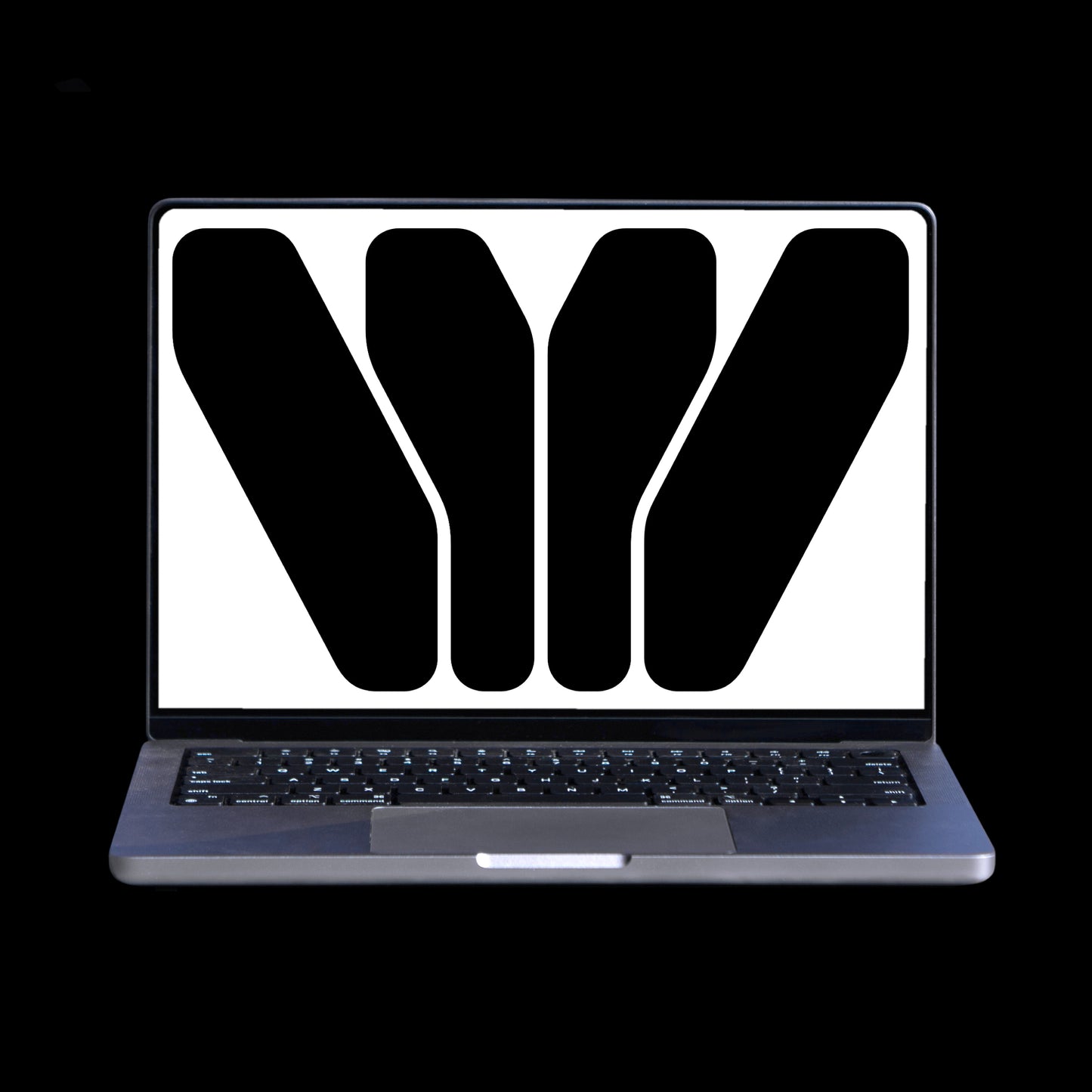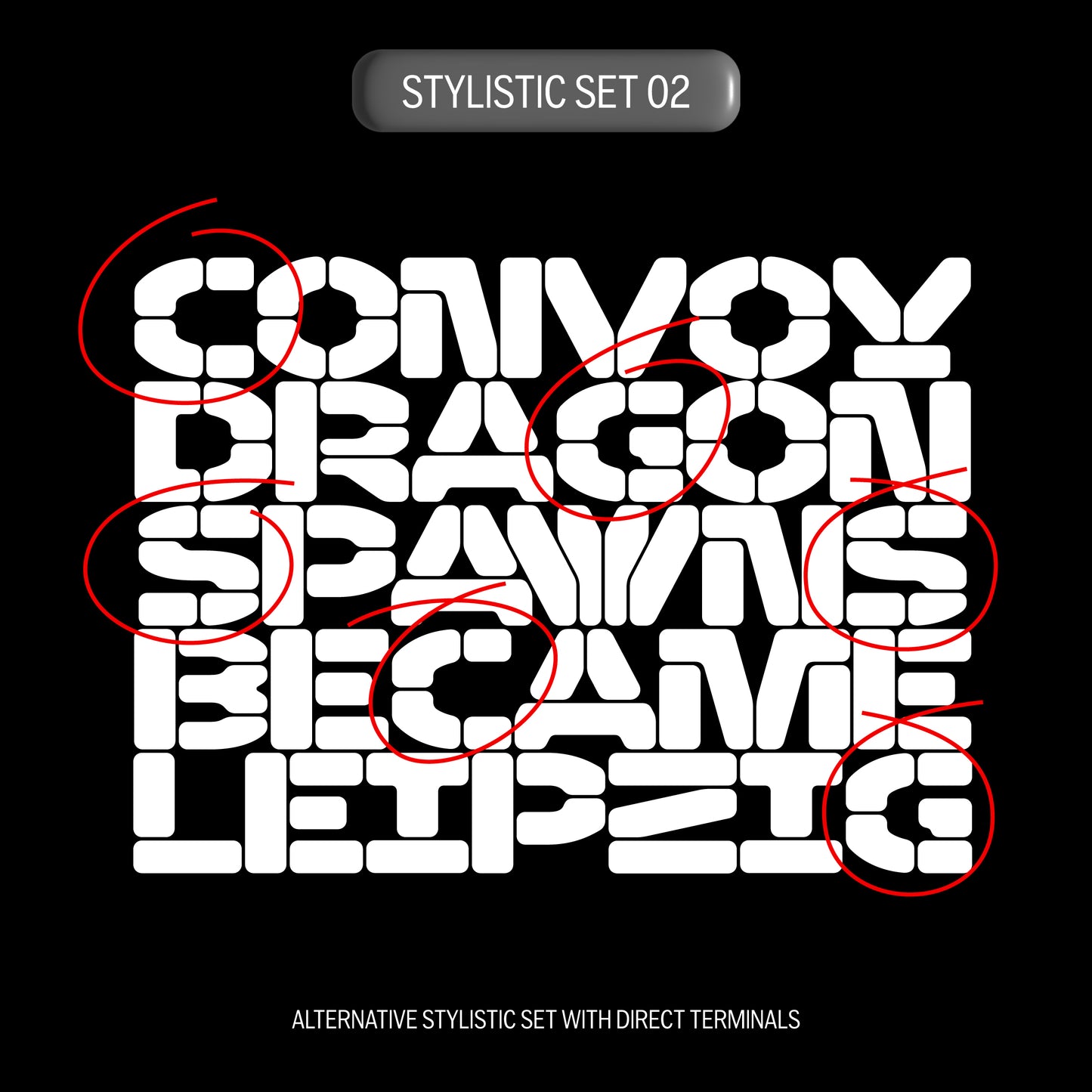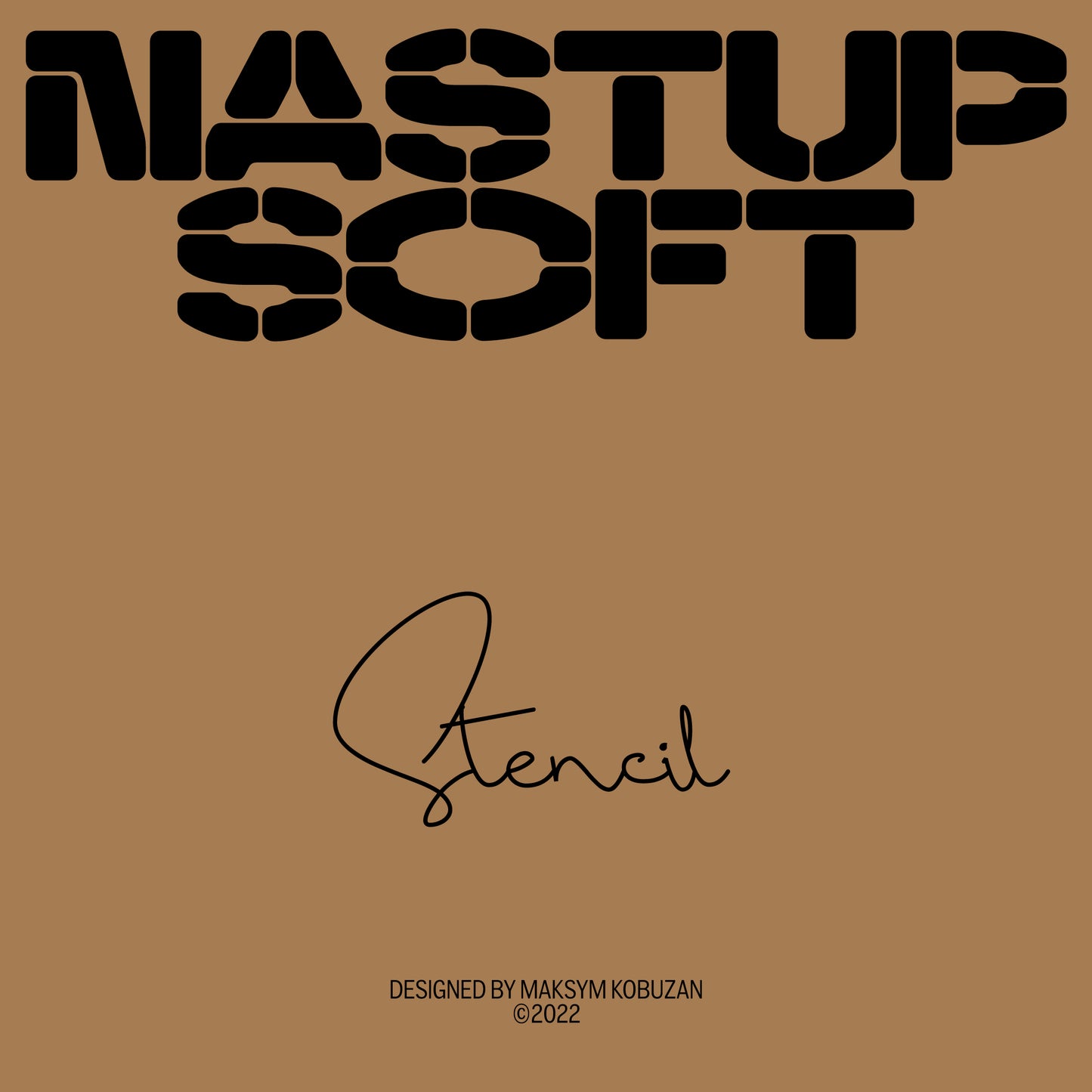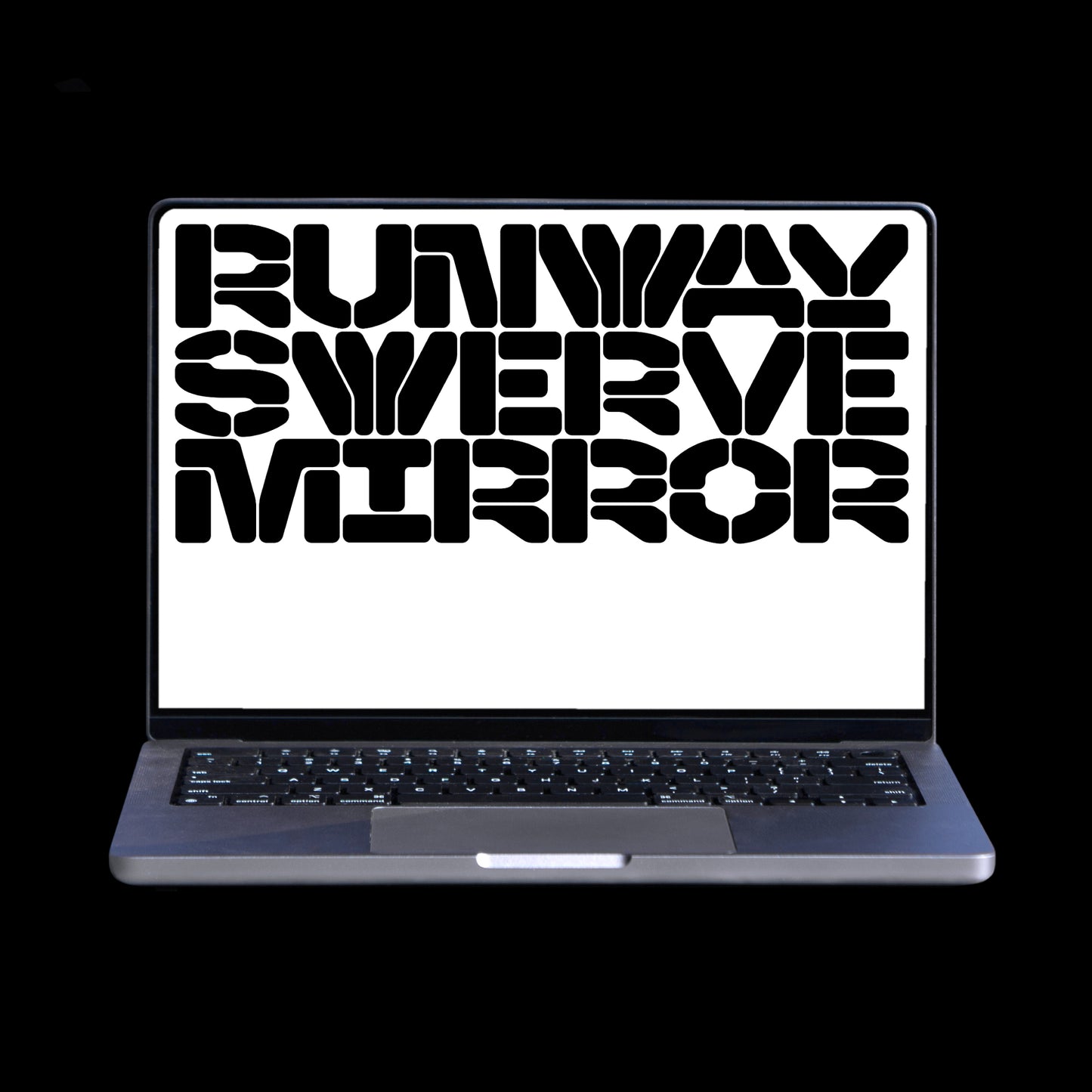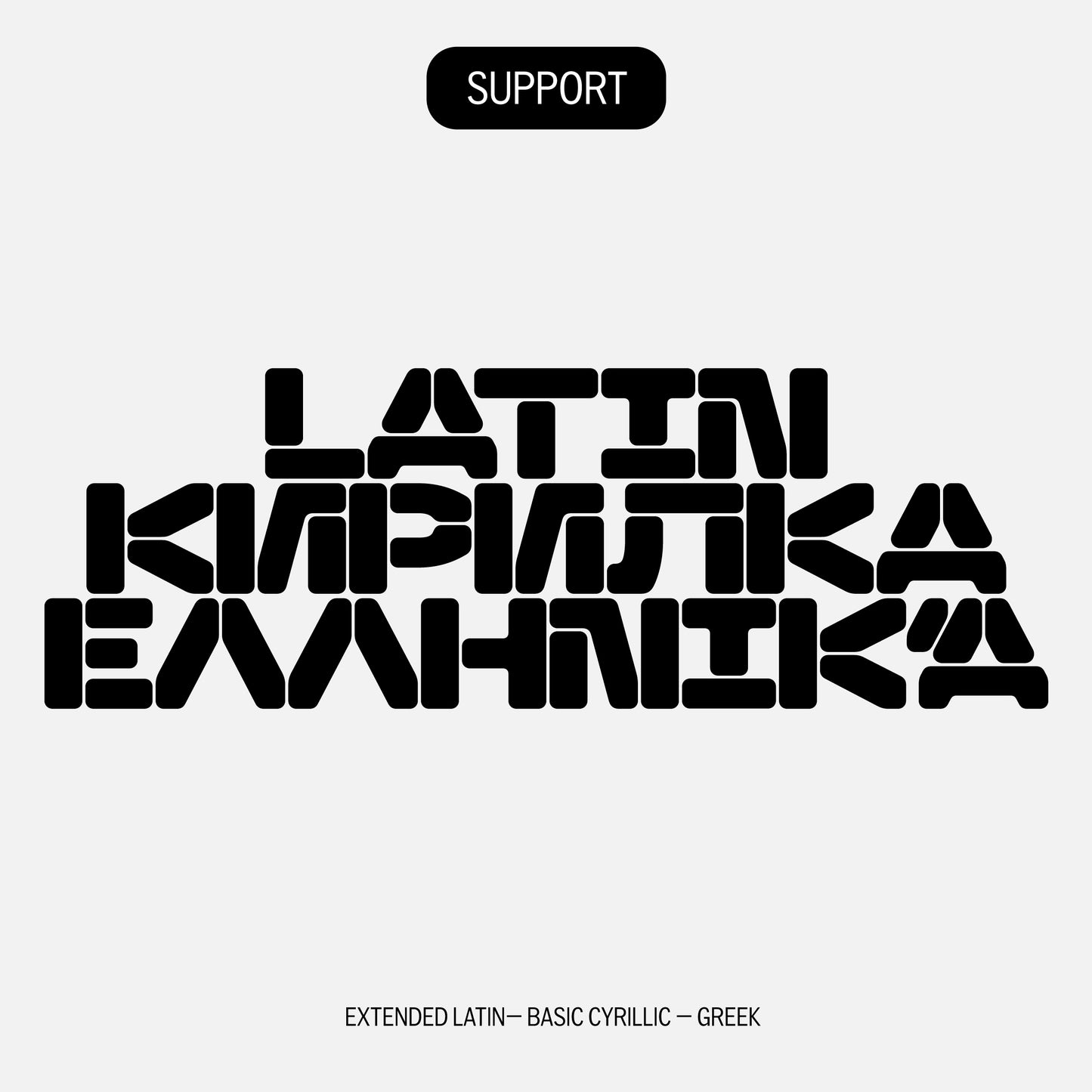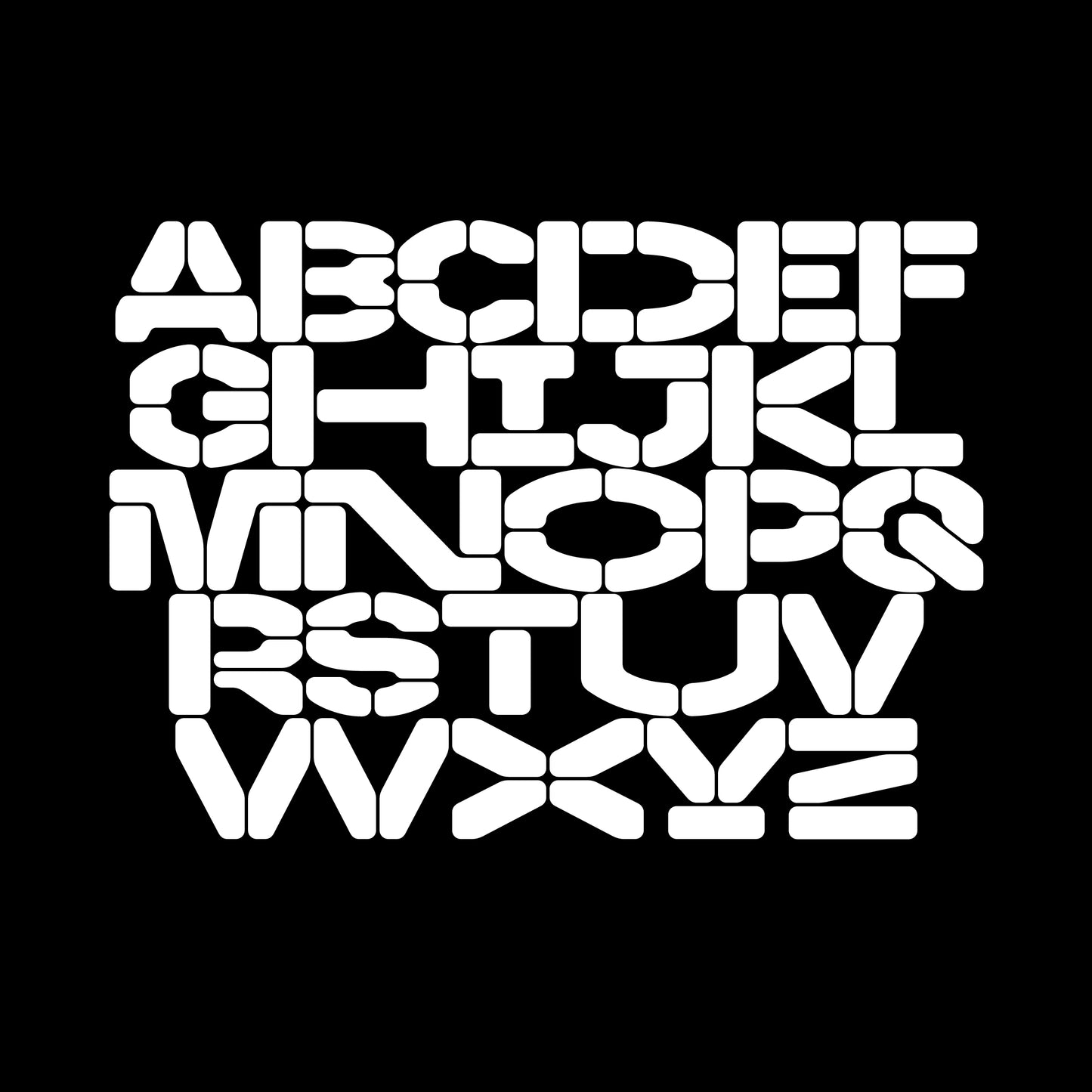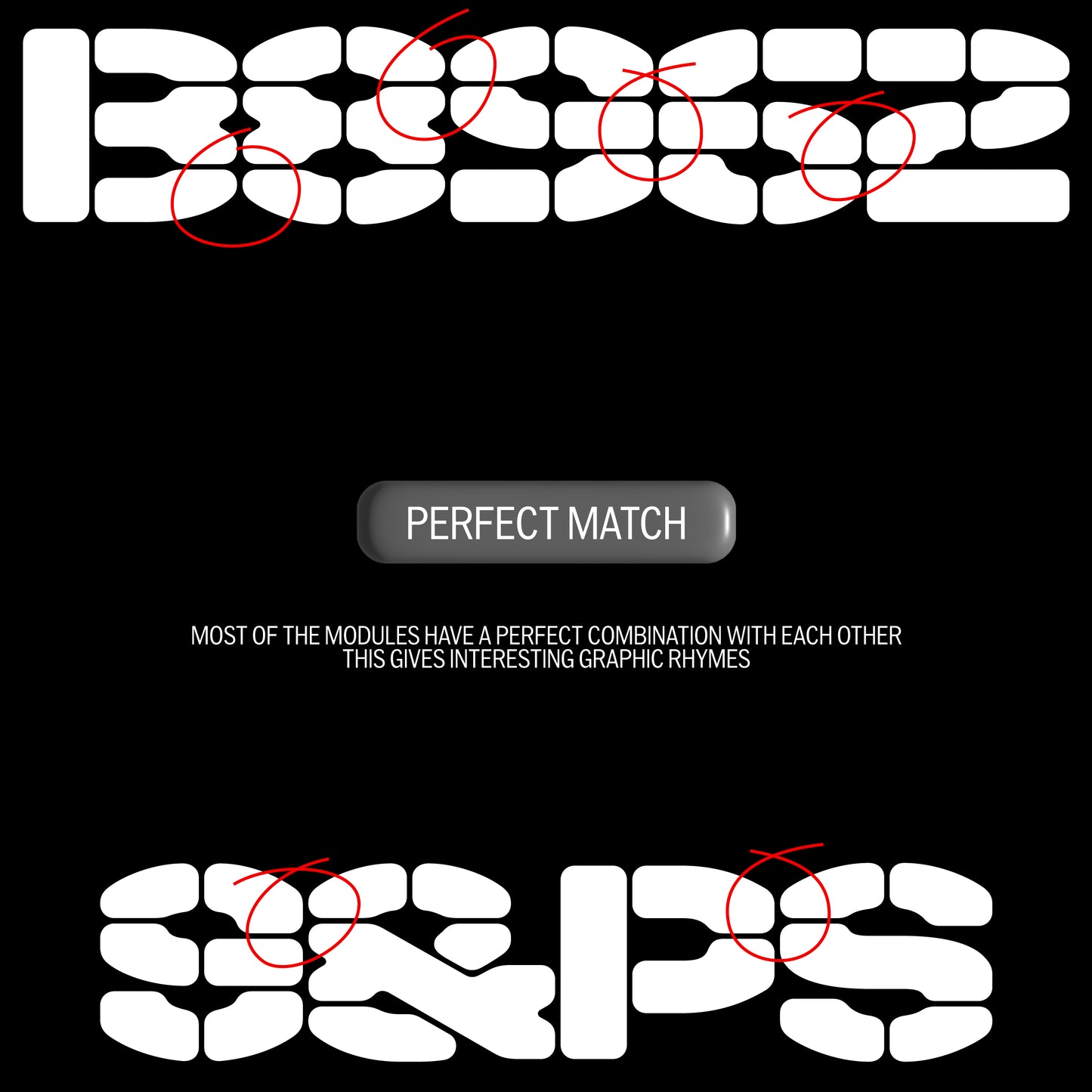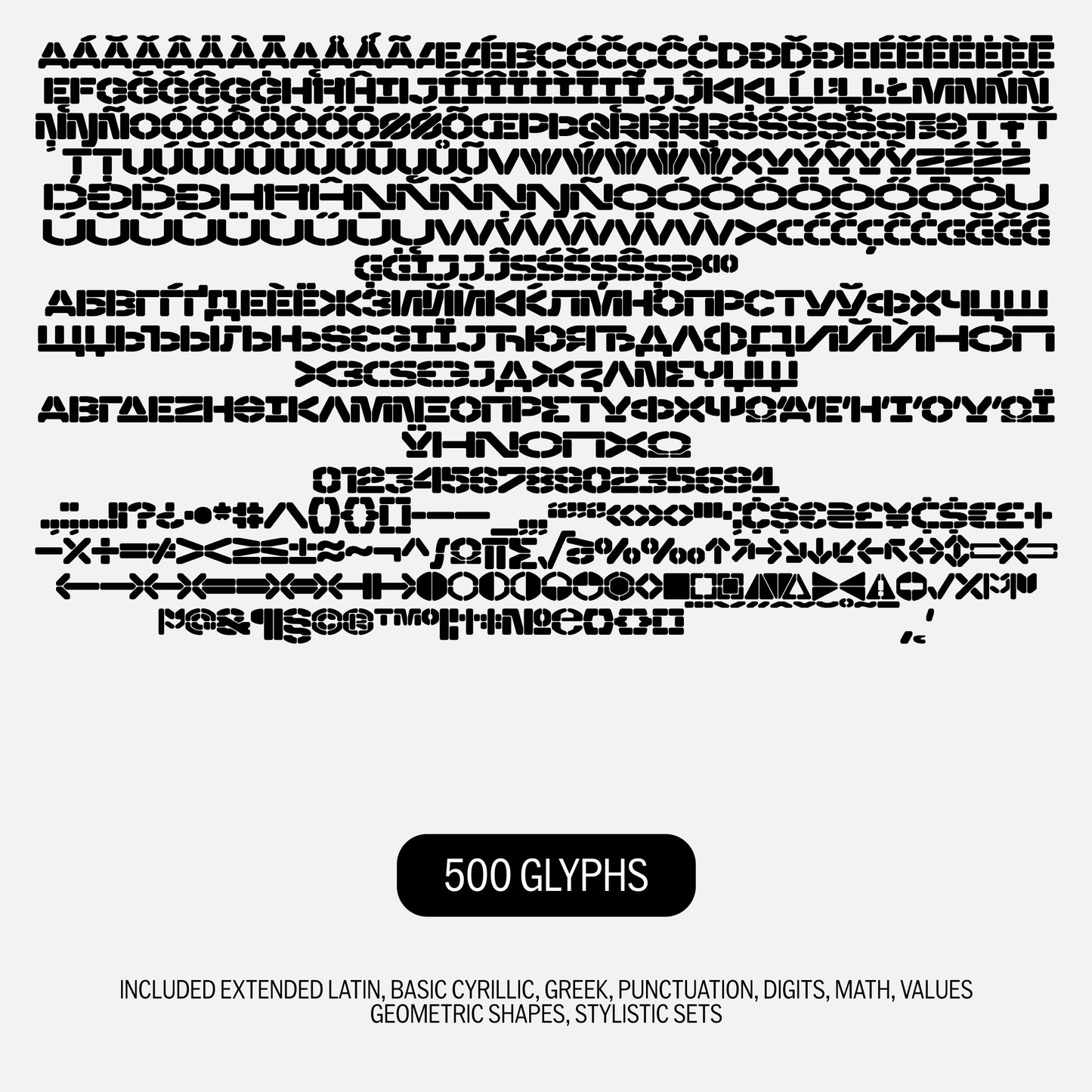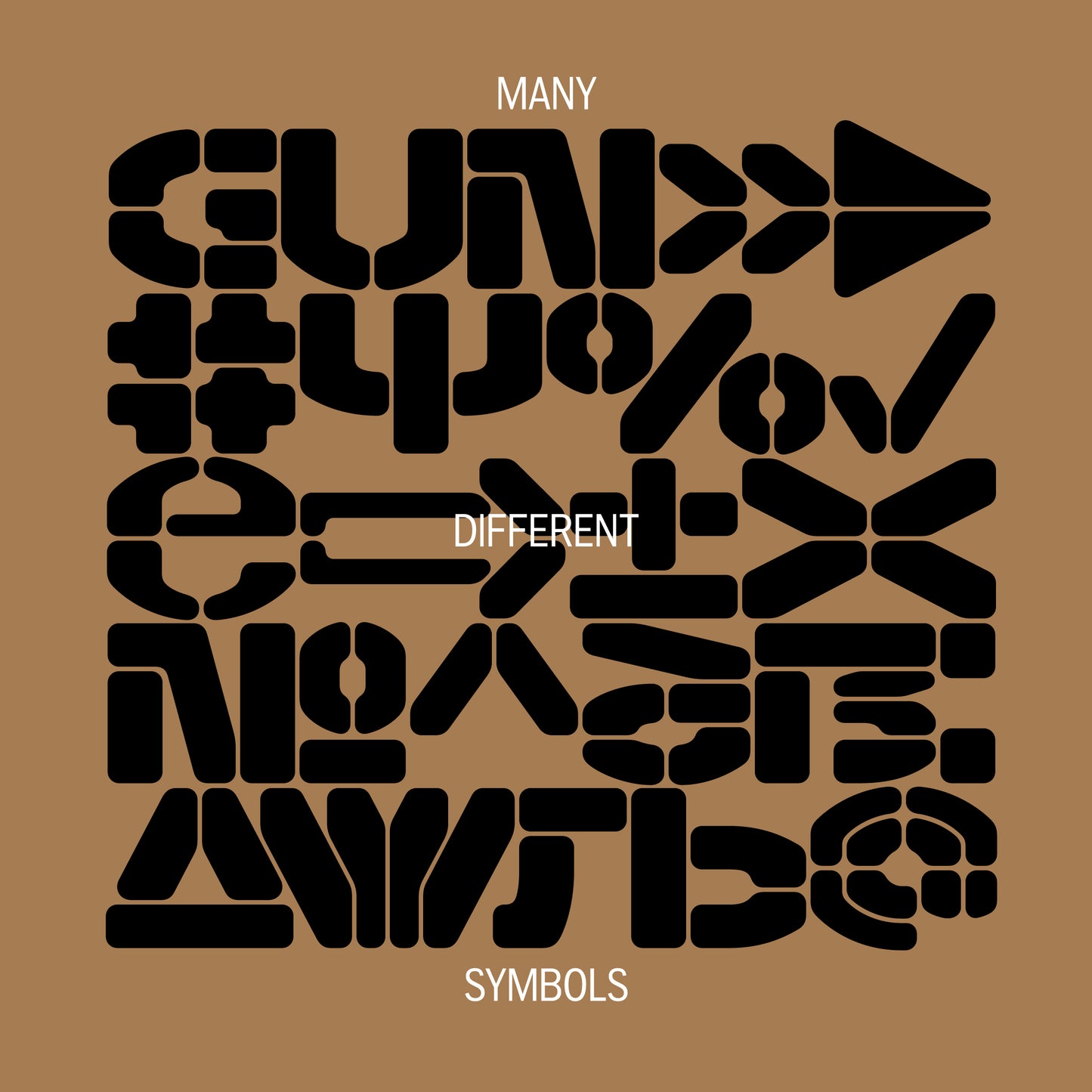
Nastup Soft
Maksym Kobuzan
NASTUP SOFT is a modular, all-caps stencil sans serif typeface characterized by its rounded corners and inspired by technical stencilled signs found on walls and various building details.
Equipped with Extended Latin, Basic Cyrillic, and Greek language support, NASTUP SOFT ensures versatility and accessibility for a wide range of design projects. Additionally, it offers an alternative set of symbols specifically for the Ukrainian alphabet, enhancing its utility for diverse linguistic needs.
– Total glyph set: 500
– Uppercase ONLY
– Proportional + Tabular numerals
– Punctuations and symbols
– Geometric shapes
– Arrows
– Stylistic alternates (ss01-ss03)
– Support 210+ languages
– Latin Extended
– Cyrillic Basic + Bulgarian letters
– Greek